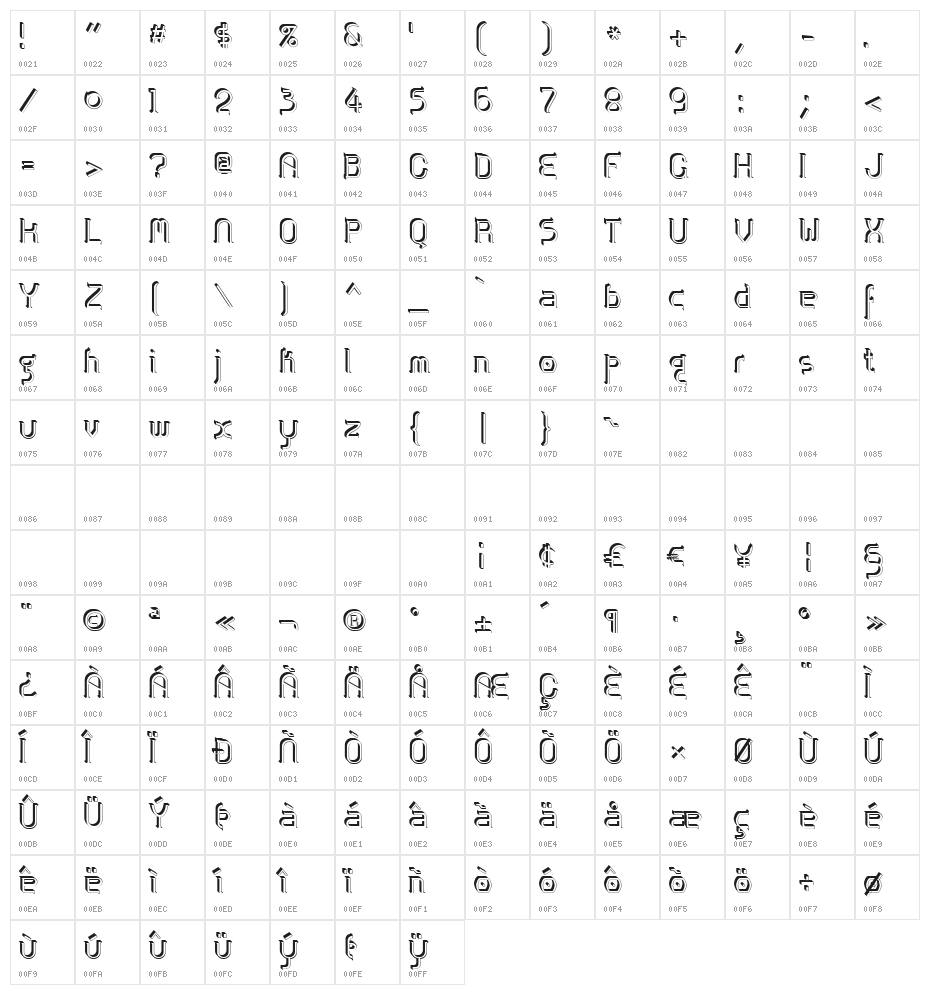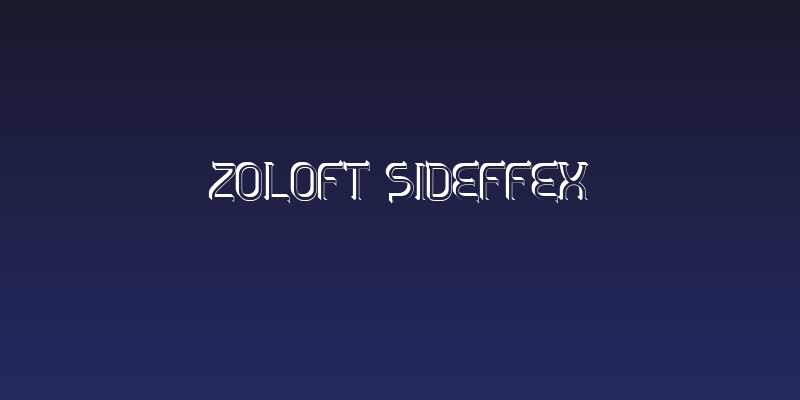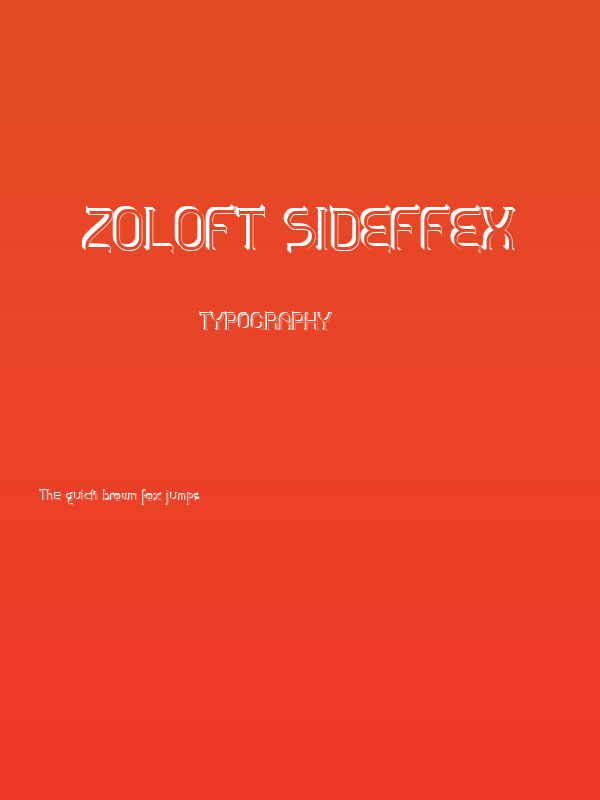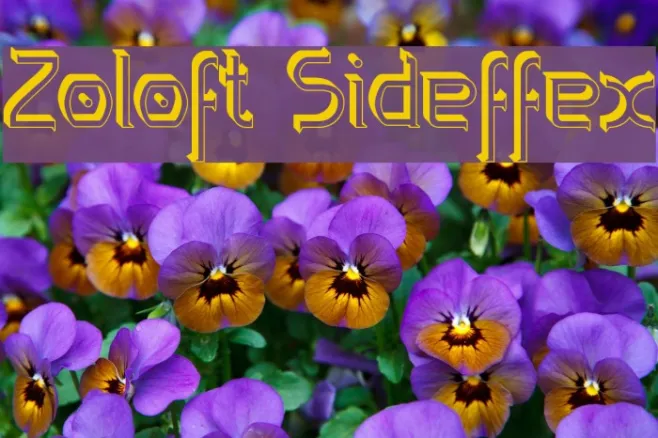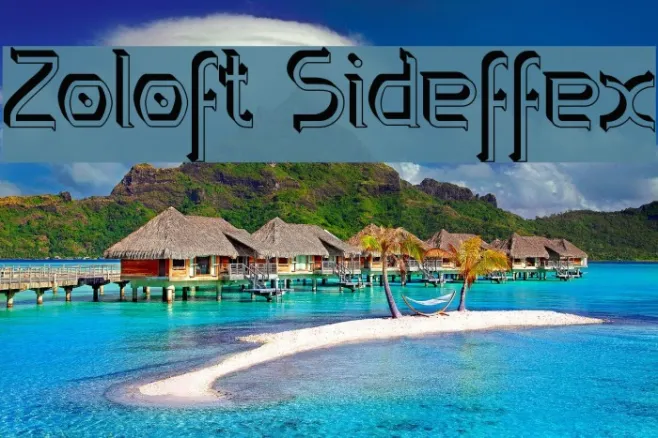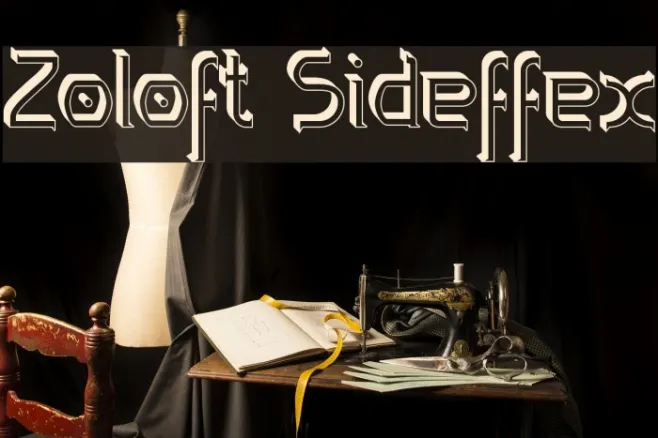
Zoloft Sideffex Font
Zoloft Sideffex Description
This font features a bold and striking design with a three-dimensional effect, created by shadow-like elements that give depth to each character. The uppercase letters are angular and geometric, with sharp edges and a futuristic feel. The lowercase letters maintain a similar style, offering consistency across the typeface. Numbers and special characters are designed to match the bold and dynamic aesthetic, making them stand out. The overall style is modern and decorative, ideal for projects that require a strong visual impact.
| Proposed Projects | Ideal for branding, posters, video game graphics, and any project needing a bold, eye-catching typeface. |